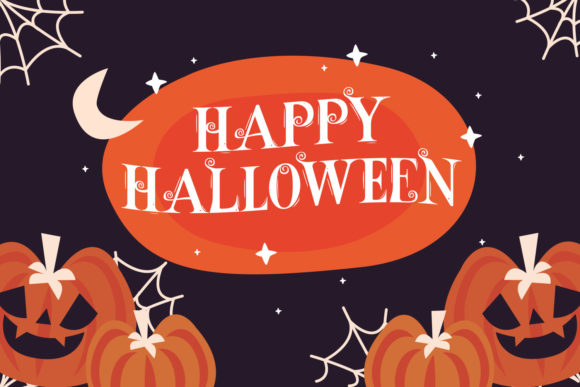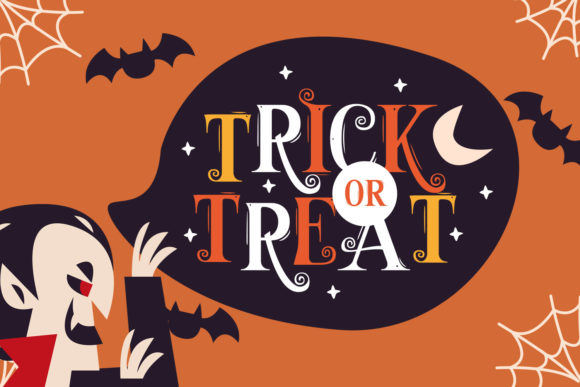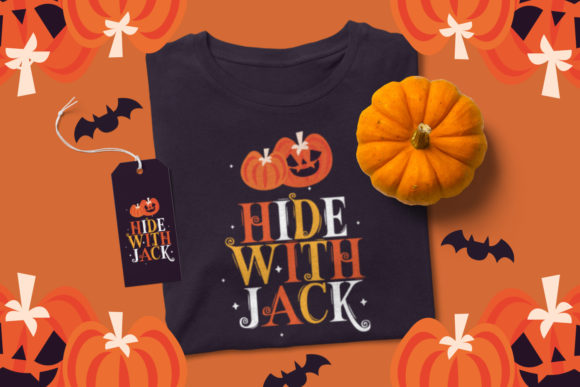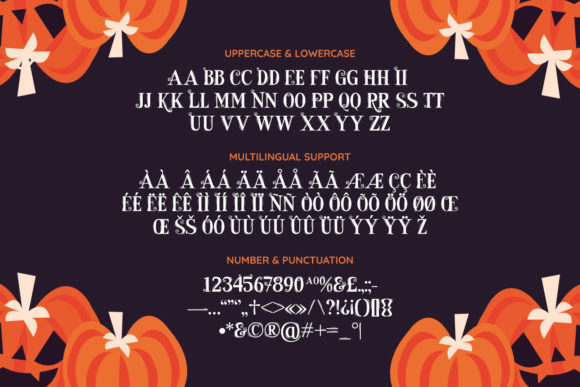
Beyone Font: The Ultimate Choice for Spooky and Creative Projects
Are you looking for a font that can add a touch of spookiness and creativity to your projects? Look no further than the Beyone Font! This thick-lettered and spooky display font is perfectly suitable for any Halloween-related project or crafty idea. With its unique and eye-catching design, Beyone Font is sure to make your project stand out from the crowd.
What is Beyone Font?
Beyone Font is a display font that features thick, bold letters with a spooky and mysterious feel. The font is designed to be attention-grabbing and is perfect for creating eye-catching headlines, titles, and captions. Its unique design makes it an ideal choice for projects that require a touch of horror, mystery, or suspense.
Features of Beyone Font
Beyone Font comes with a range of features that make it an ideal choice for designers and crafters. Some of its key features include:
- Thick and bold letters: The font features thick and bold letters that are perfect for creating eye-catching headlines and titles.
- Spooky and mysterious feel: The font has a spooky and mysterious feel that is perfect for Halloween-related projects or crafty ideas.
- High-quality design: The font is designed with high-quality graphics that ensure it looks great in any project.
Uses of Beyone Font
Beyone Font is a versatile font that can be used in a variety of projects. Some of the most popular uses of the font include:
- Halloween-related projects: The font is perfect for creating spooky and eye-catching headlines, titles, and captions for Halloween-related projects.
- Crafty ideas: The font is ideal for crafty ideas such as making spooky decorations, cards, and invitations.
- Graphic design projects: The font can be used in graphic design projects such as creating posters, flyers, and brochures.
- Digital art: The font can be used in digital art projects such as creating spooky and eye-catching graphics and illustrations.
Benefits of Using Beyone Font
There are several benefits to using Beyone Font in your projects. Some of the key benefits include:
- Unique and eye-catching design: The font has a unique and eye-catching design that is sure to make your project stand out from the crowd.
- High-quality graphics: The font features high-quality graphics that ensure it looks great in any project.
- Versatile: The font is versatile and can be used in a variety of projects, from Halloween-related projects to graphic design projects.
In conclusion, Beyone Font is a thick-lettered and spooky display font that is perfectly suitable for any Halloween-related project or crafty idea. With its unique and eye-catching design, Beyone Font is sure to make your project stand out from the crowd. Its versatility, ease of use, and high-quality graphics make it an ideal choice for designers and crafters. So why wait? Download Beyone Font today and start creating spooky and eye-catching projects!